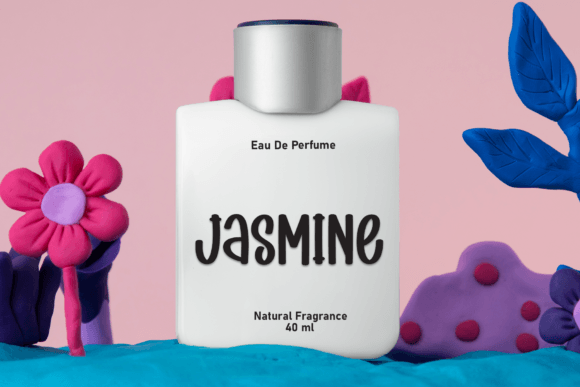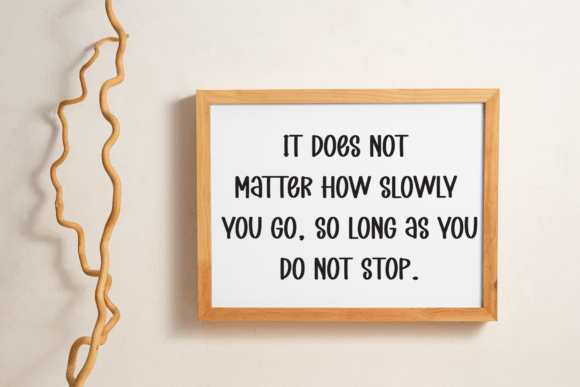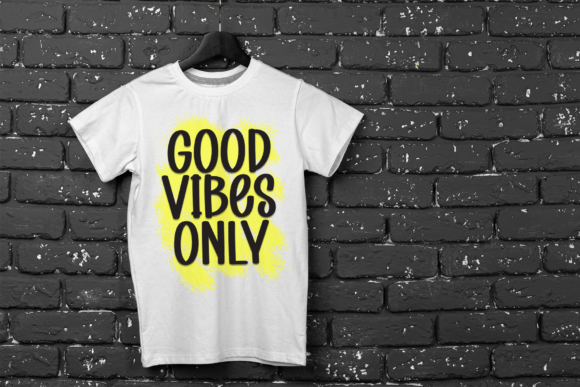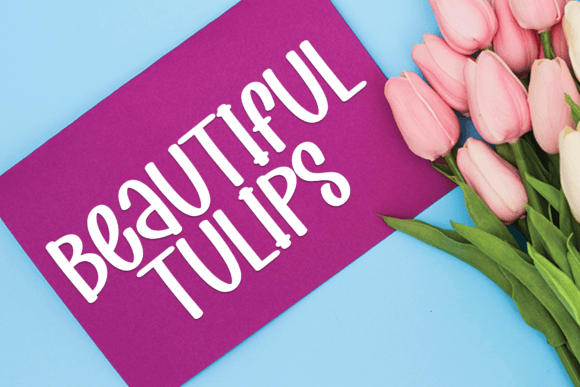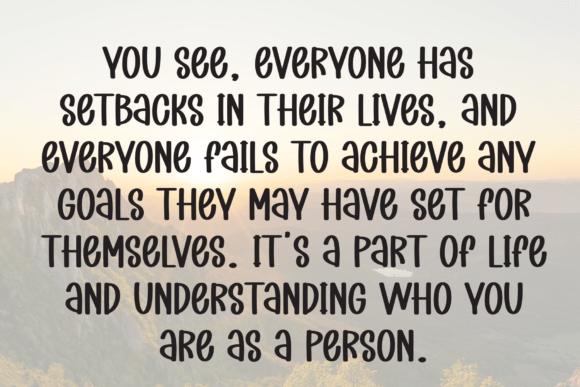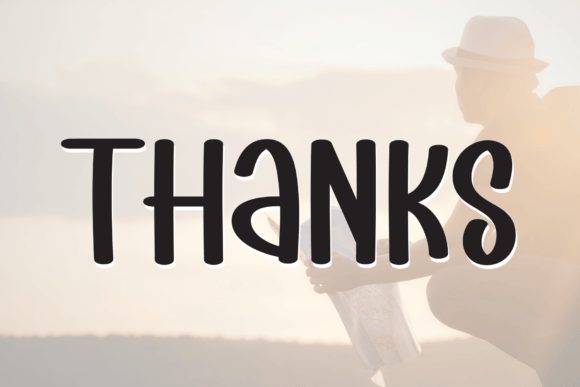
Unleash Your Creativity with Adventure Journey Font
Have you ever found yourself lost in a sea of ideas, with a blank page staring back at you, waiting to be filled with your next masterpiece? That’s where the magic happens – in those moments of pure creativity, anything is possible. And that’s exactly what the Adventure Journey Font is all about: capturing the essence of those thrilling moments and bringing them to life.
Adventure Journey Font is a sweet and friendly handwritten font, designed to take you on a journey of discovery and imagination. Its natural and unique style makes it incredibly versatile, allowing you to use it in a wide range of designs, from elegant invitations to playful social media graphics. Whether you’re a seasoned designer or just starting out, this font is sure to be your new go-to companion.
Adventure Journey Font Key Features
- Font Family: Adventure Journey Font comes in 4 different font styles – Regular, Italic, Bold, and Bold Italic.
- Character Set: The font includes a wide range of characters, including uppercase and lowercase letters, numbers, punctuation marks, and special characters.
- Unique Characteristics: The Adventure Journey Font features a unique blend of modern and vintage elements, making it perfect for creating a sense of adventure and exploration in your designs.
Review of Adventure Journey Font
Overall, I think the Adventure Journey Font is an exciting addition to any design project. ✨ It’s a fun and adventurous typeface that’s sure to grab attention. The font’s unique features, such as its bold and playful style, make it perfect for headings and titles.
The font also has a great range of weights and styles, which allows for a lot of flexibility in how it can be used. ✨ From the light and airy ‘Light’ style to the heavy and dramatic ‘Black’ style, there’s a weight to suit every need.
What I Like:
- Fun and adventurous feel
- Wide range of weights and styles
- Perfect for headings and titles
What I Don’t Like:
- The font can be a bit overwhelming if used in large blocks of text. ⚠️ It’s best used in moderation to avoid fatigue.
- The font may not be suitable for projects that require a more serious or professional tone.
Overall, I think the Adventure Journey Font is a great choice for designers who want to add a bit of excitement and adventure to their projects. Just be mindful of the potential limitations and use it in moderation to get the best results.
The Adventure Journey Font is perfect for:
- Travel and adventure-related projects.
- Outdoor and nature-themed designs.